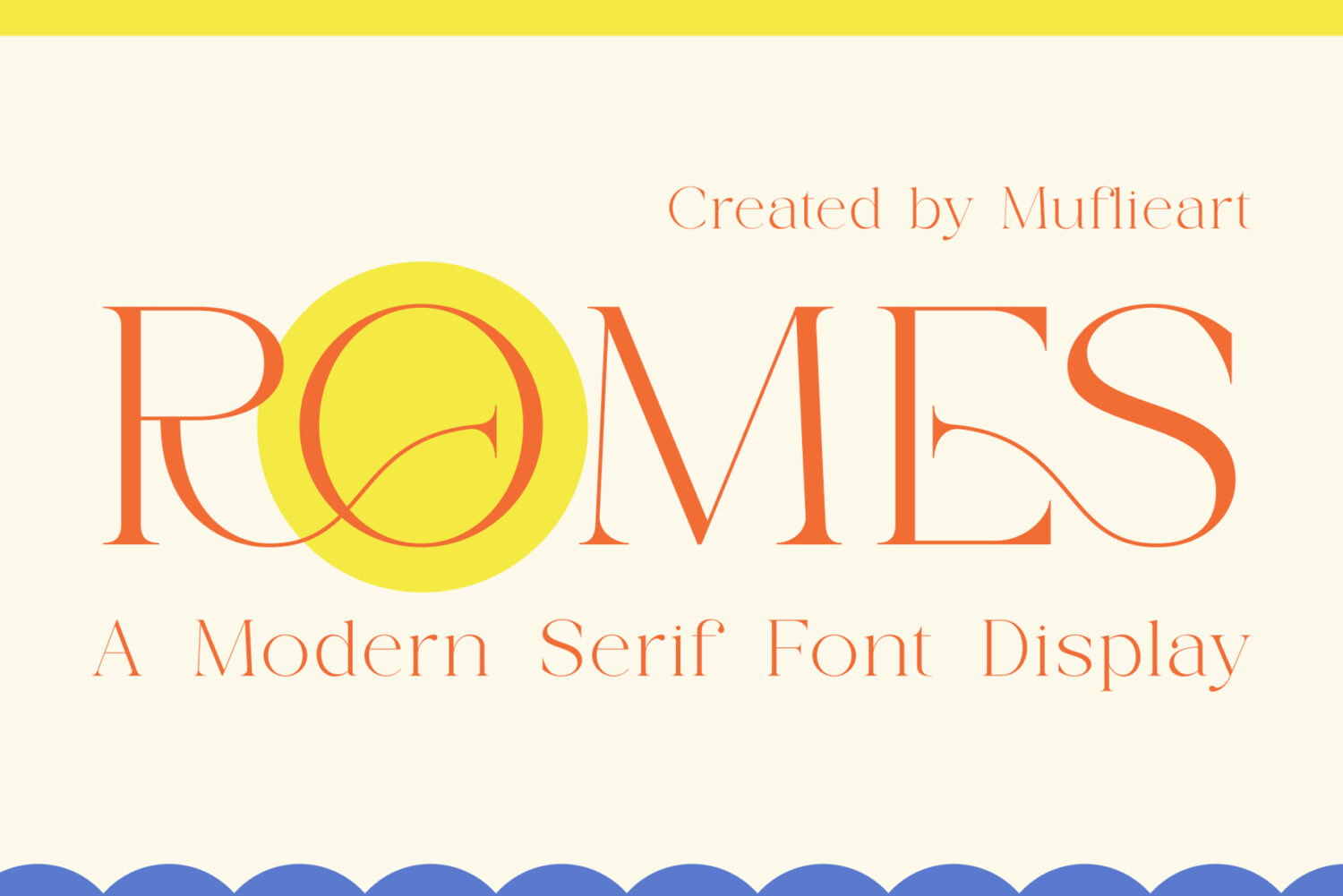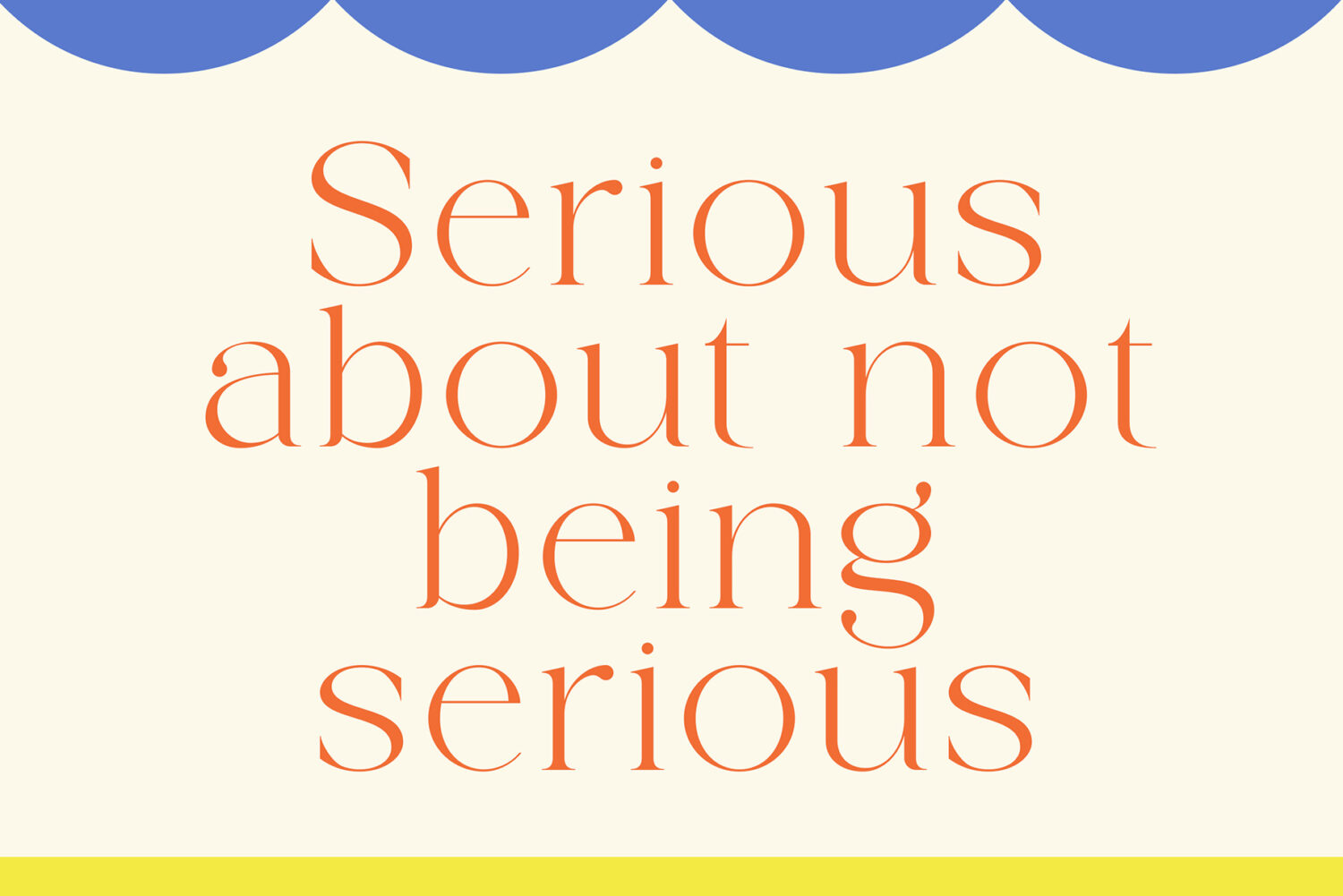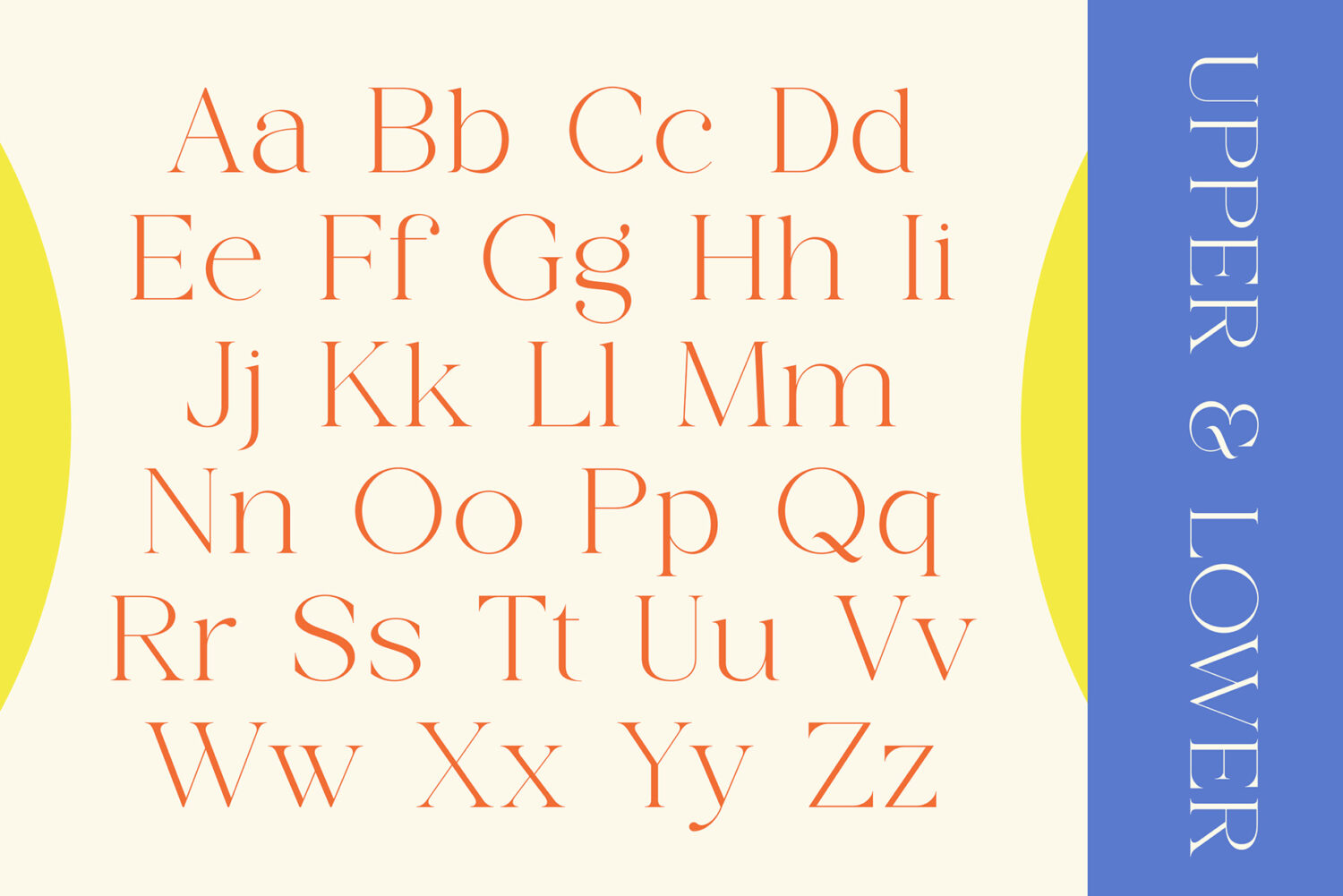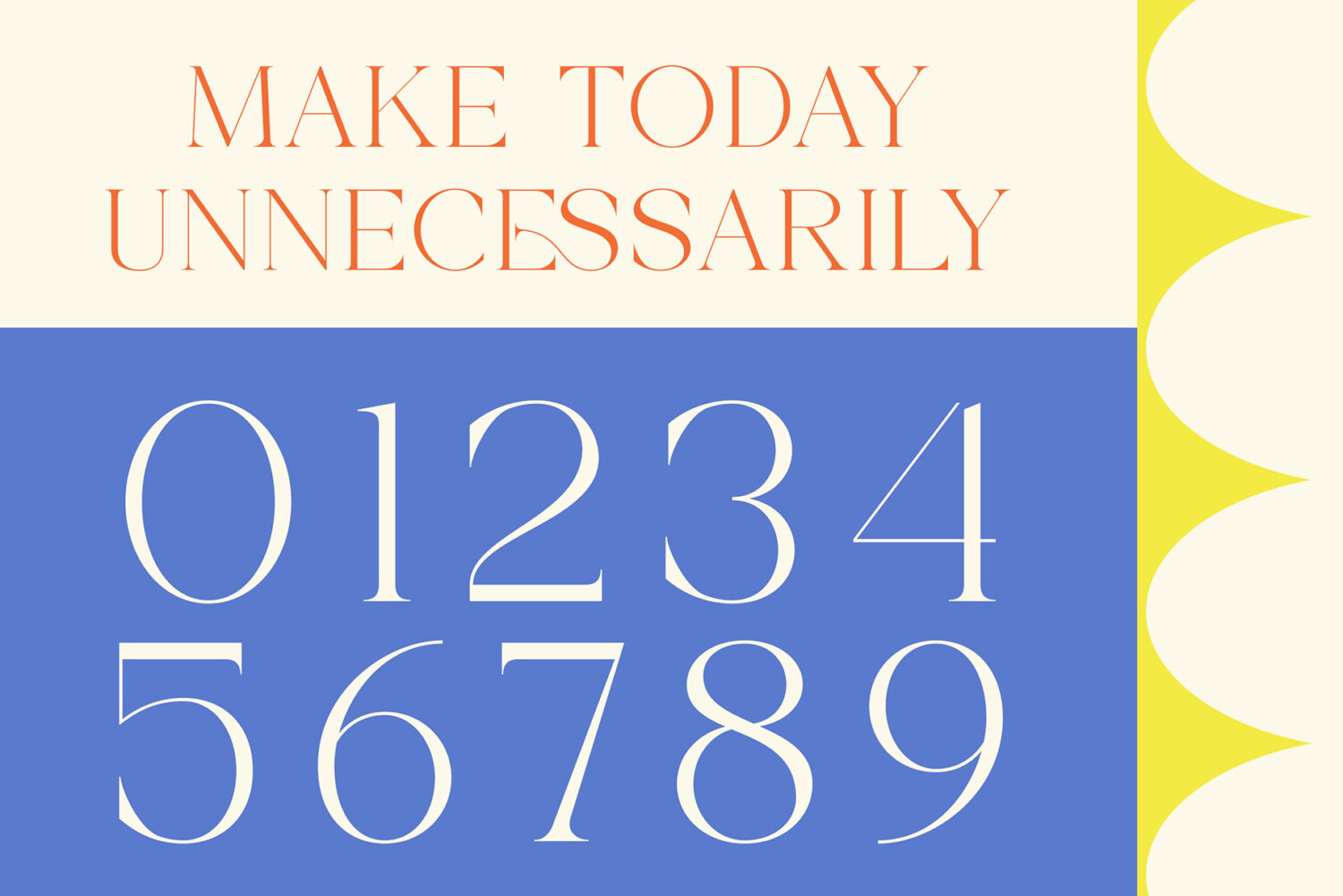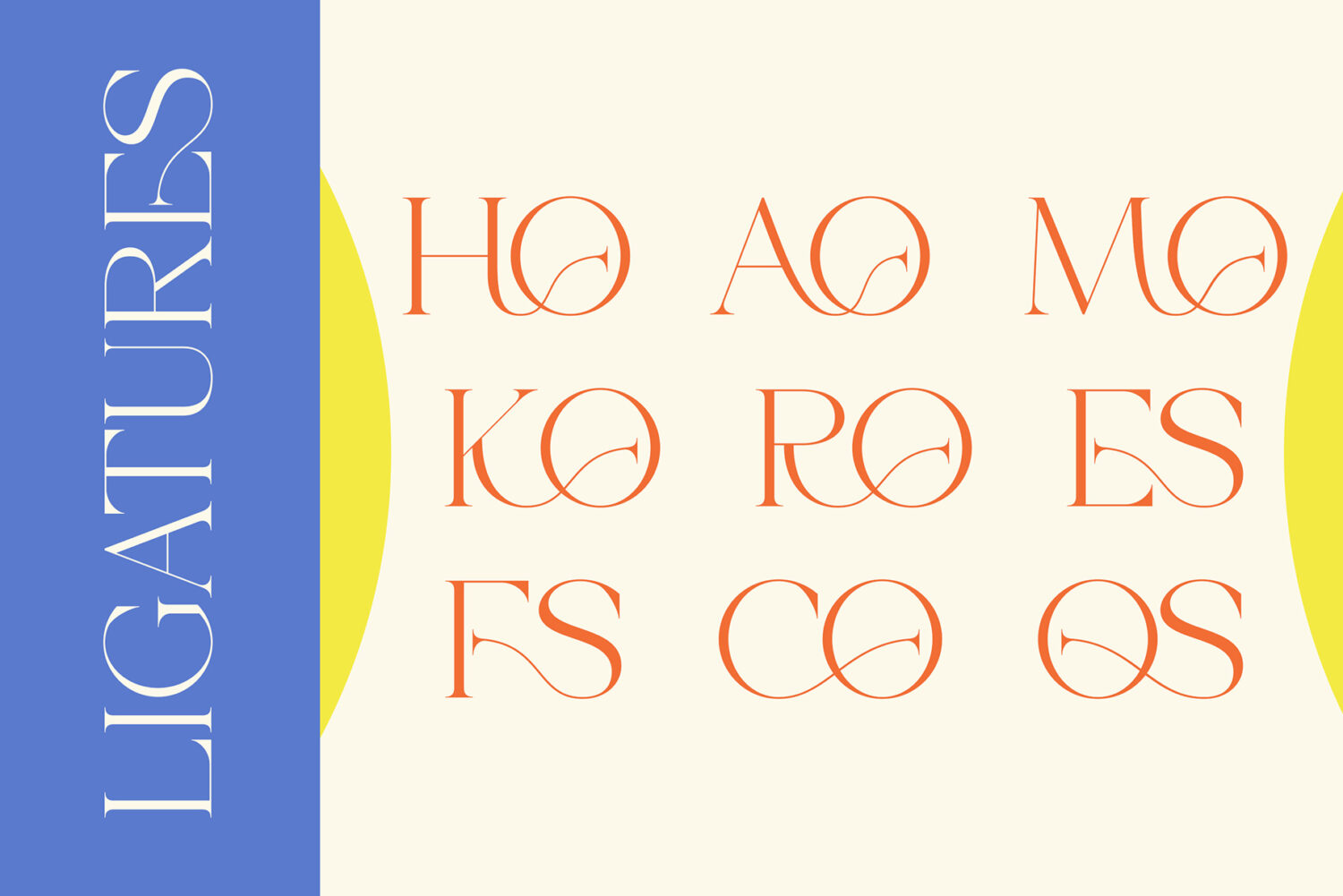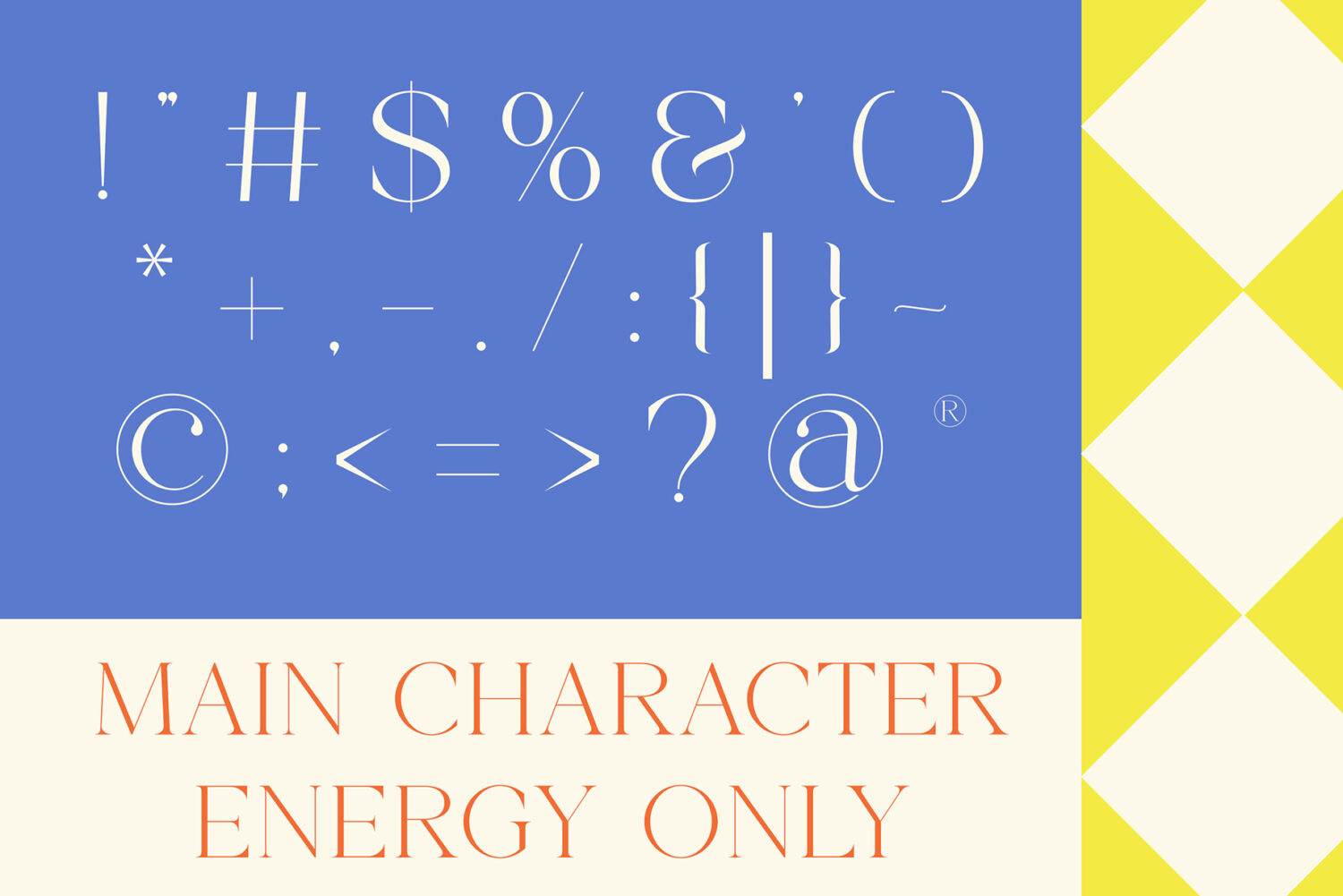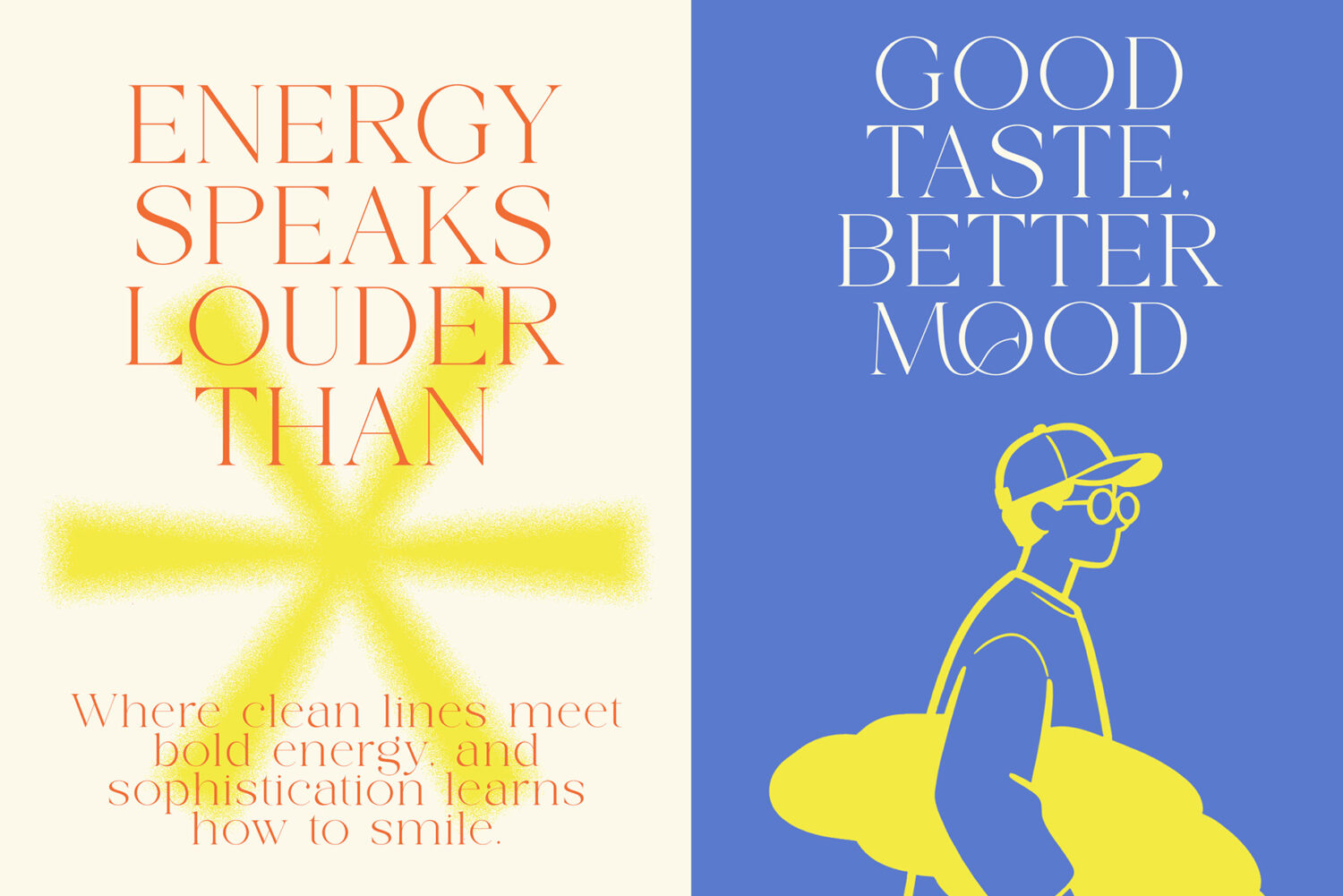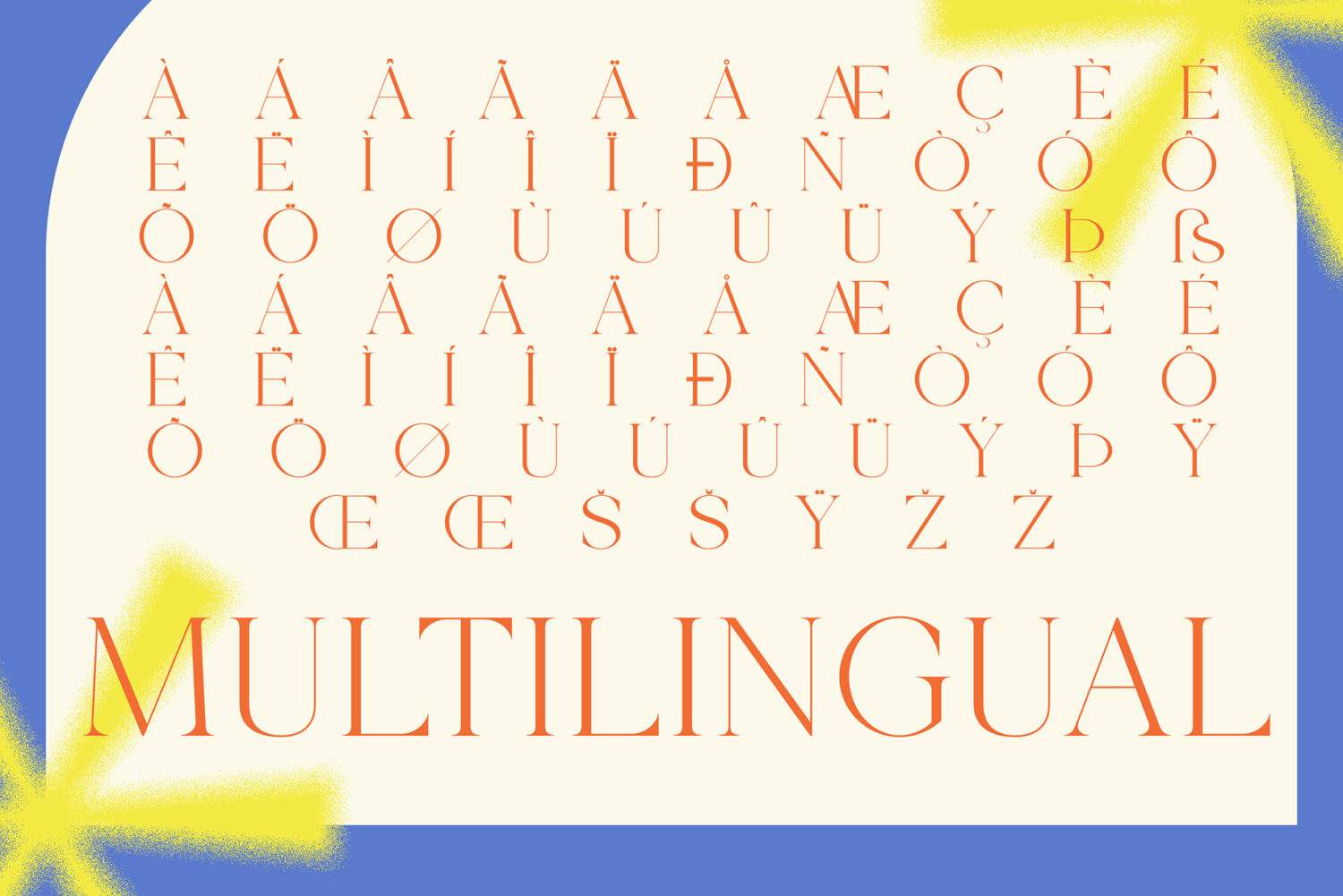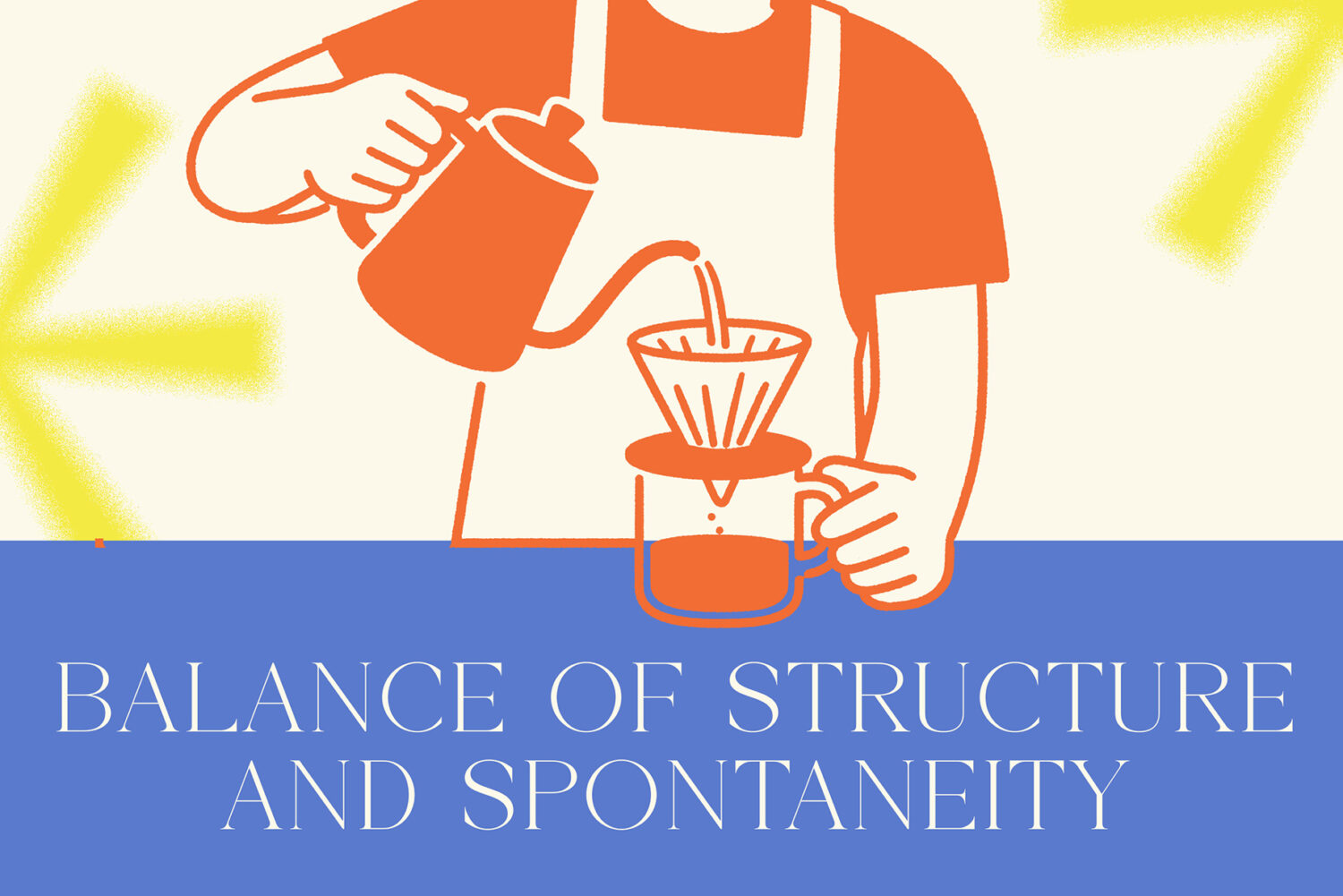
Introducing **Romes** the elegant, beautiful, and modern Serif. With its modern and minimalist look, Romes brings a luxurious, classy, and clean style to your projects such as websites, modern logos, brand identities, social media quotes, wedding stationery, magazines, and more!
Romes features unique and classy capital letters A to Z and also comes with unique ligatures making Romes a beautiful font that can be customized for various projects and jobs you want.
Romes is perfect for: logos, brands, wedding invitations, business cards, greeting cards, posters, magazines, social media, agenda prints, and websites.